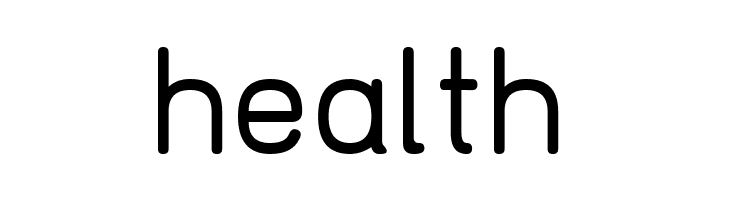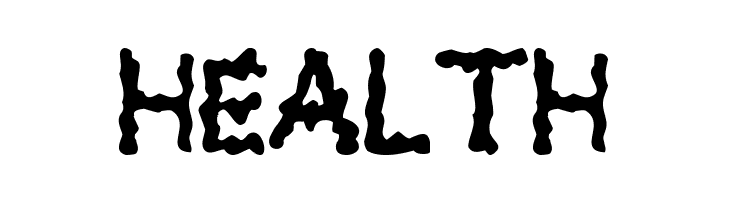
A futuristic, geometric font with clean lines and consistent stroke width.
A modern, rounded sans-serif font with excellent readability.
Fantasy-themed clipart illustrations form each character.
A bold, geometric font with unique cutouts and rounded edges.
A graceful script font with fluid, cursive strokes and elegant character design.
A whimsical, handwritten font with a light and airy style.
A bold, hand-drawn font with an expressive and dynamic style.
A playful, handwritten font with a casual and energetic style.
A futuristic, geometric font with bold, double-line characters and tight spacing.
An organic, blob-like font with playful, irregular edges.